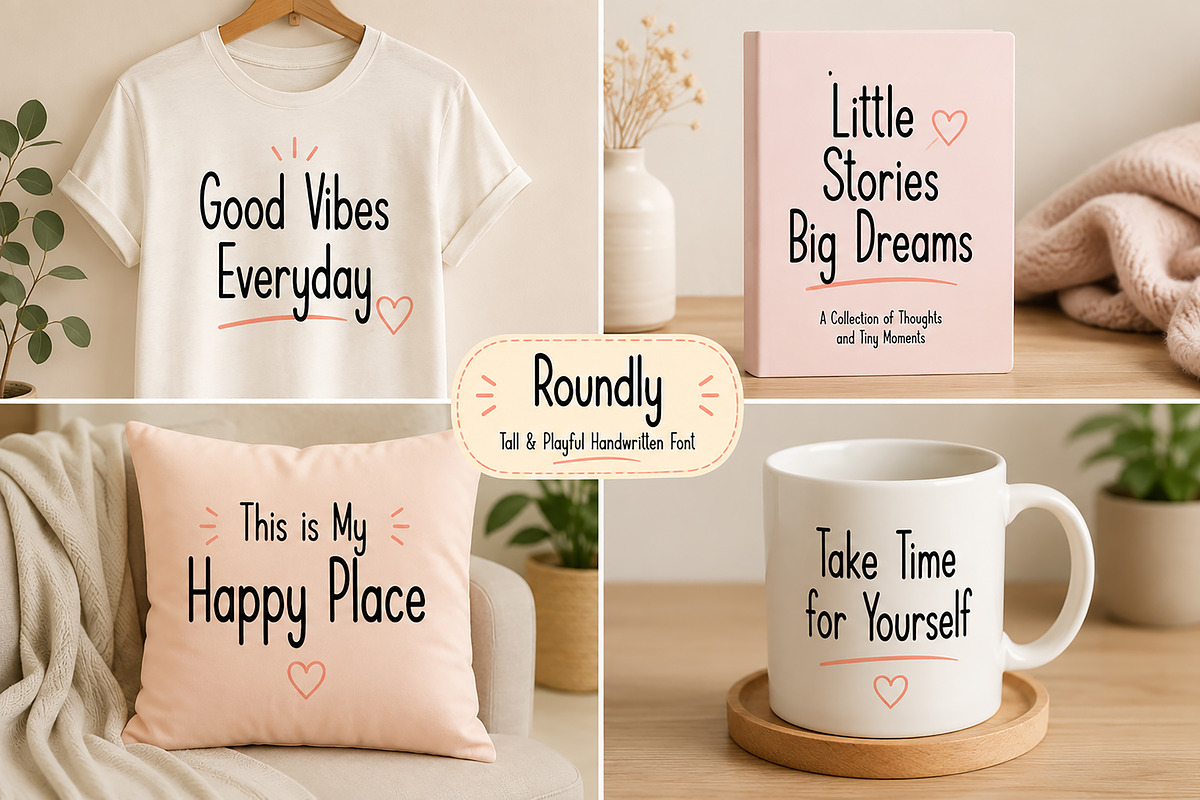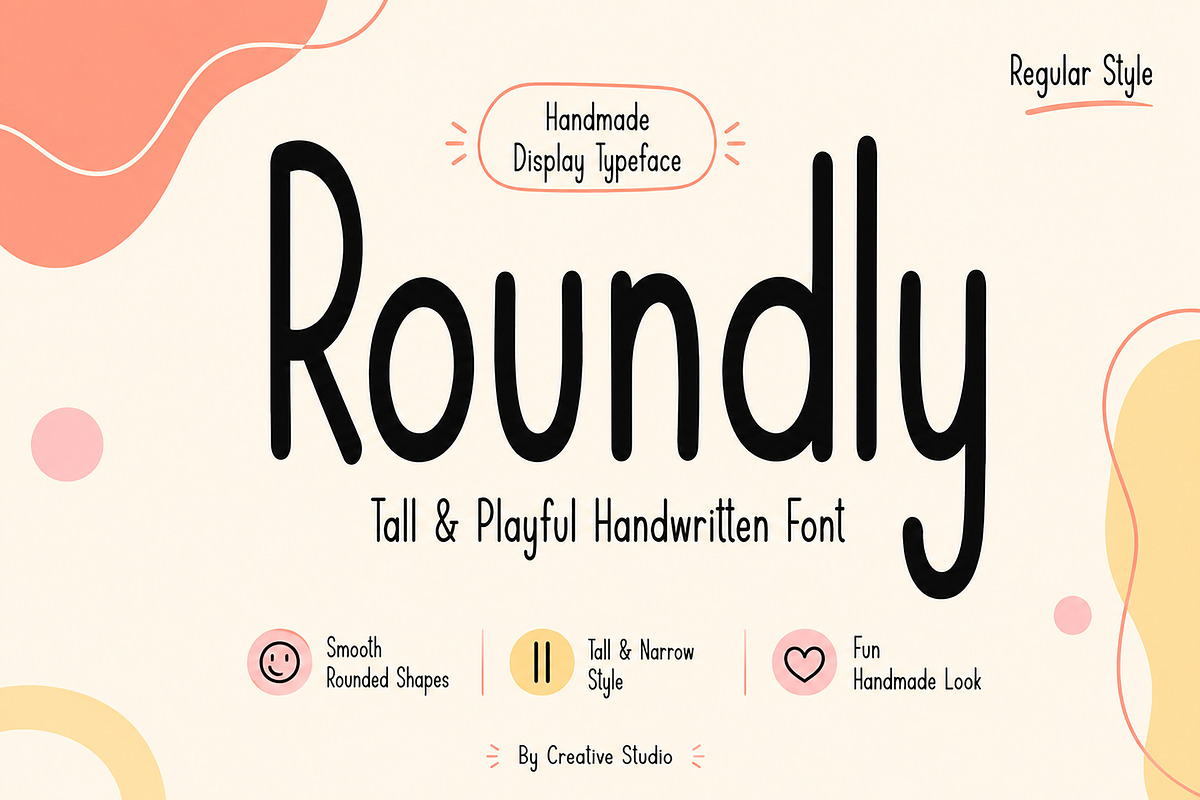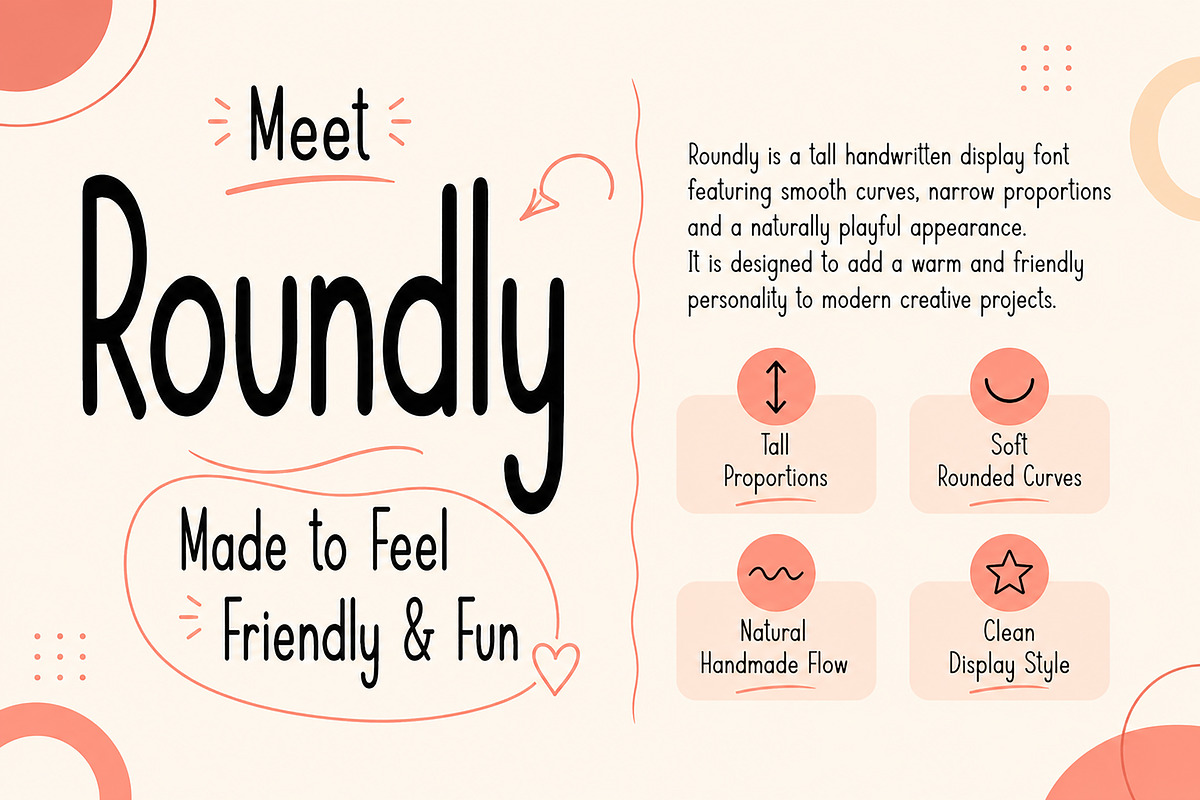
Roundly
Roundly – Tall & Playful Handwritten Font
Roundly is a tall, playful handwritten display font designed to bring warmth, personality, and creativity to your designs. With its slim proportions, smooth rounded curves, and handcrafted feel, Roundly creates a friendly and approachable look that stands out without being overwhelming.
Whether you're designing logos, children's products, packaging, social media graphics, greeting cards, book covers, or eye-catching headlines, Roundly adds a unique handmade charm to every project.
Its clean letterforms and modern handwritten style make it easy to use across both print and digital designs while maintaining a fun and professional appearance.
Logos & Branding
Children's Products
Greeting Cards
Posters & Flyers
YouTube Thumbnails
Website Headlines
Stickers
T-Shirts & Merchandise
DIY & Craft Projects
Invitations
Quotes & Typography
Creative Marketing Materials
Smooth Rounded Letterforms
Tall & Narrow Design
Handwritten Display Style